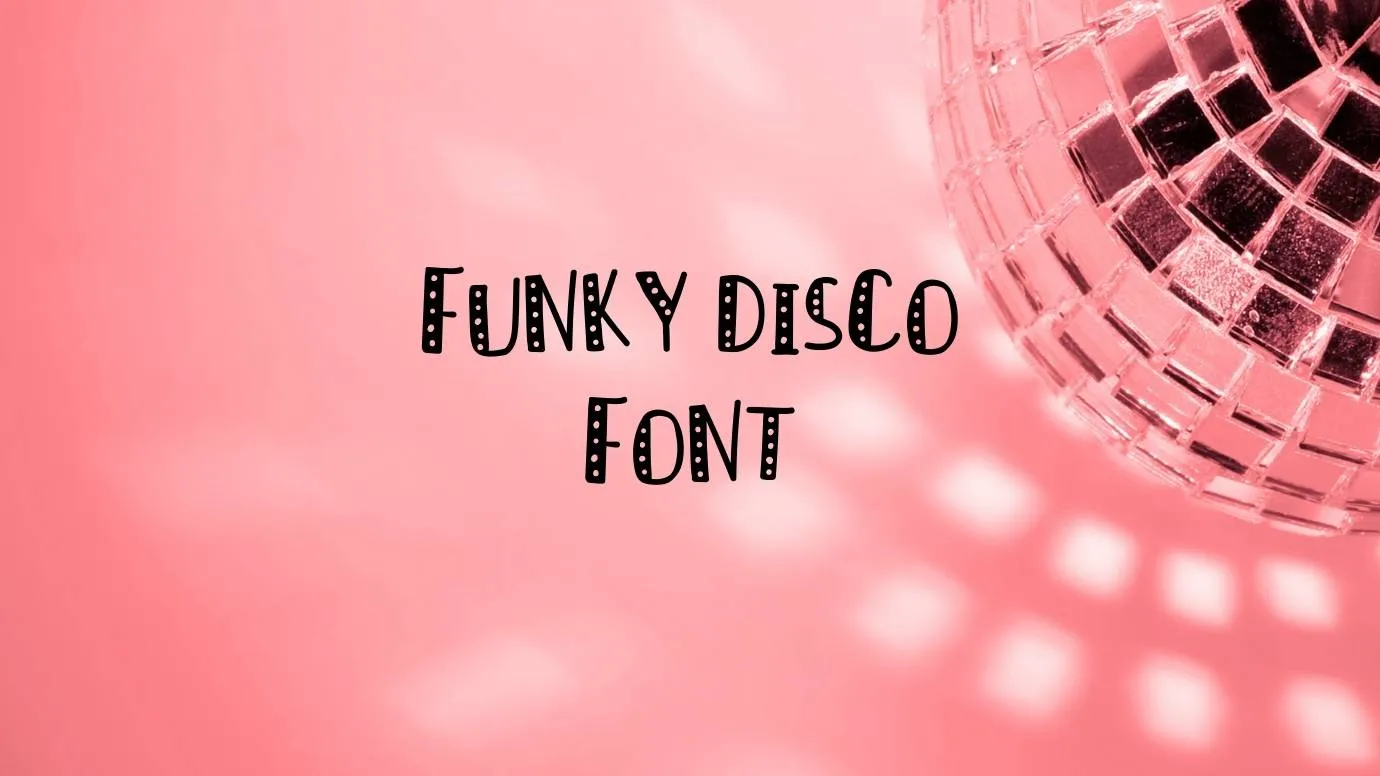
Funky Disco Font Family is a simple fancy typeface. This font was designed by Fenotype and it is available in 28 unique styles. This font family is used for the pairing of higher fonts.
It is most popular due to its neat and clean features. Its looks most beautiful in the typeface market. This typeface provides a smooth look to your results. It is the most stunning and standard Font family.